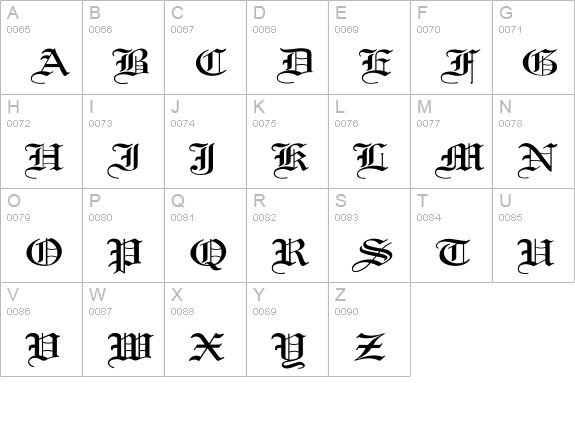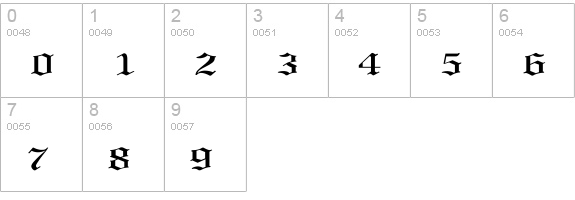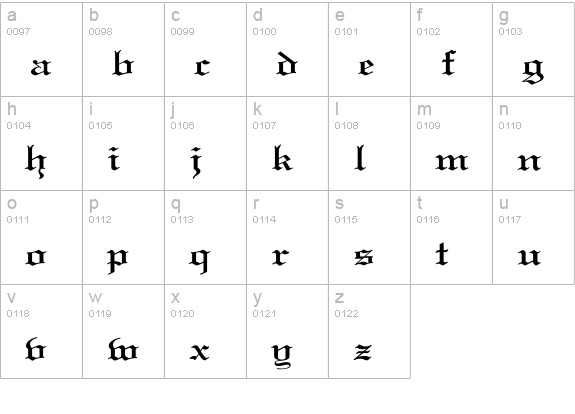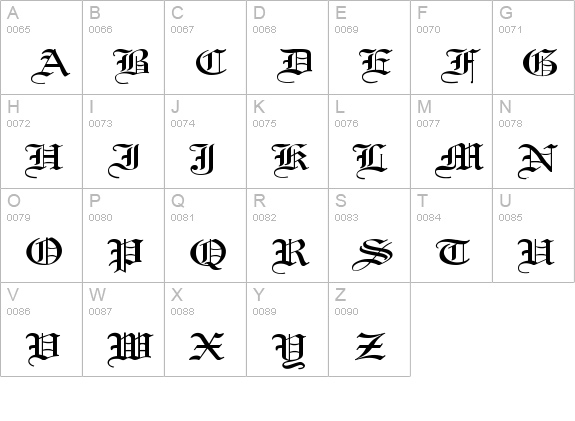
Old English Wd Font Details
The Old English Wd font is a classic and elegant typeface that exudes a sense of history and tradition. With its intricate and ornate letterforms, this font is perfect for adding a touch of vintage charm to your projects. Whether you're creating invitations, posters, or branding materials, the Old English Wd font will instantly give your designs a timeless appeal. The best part is that the Old English Wd font is completely free to download at FontsMarket.com. This means you can easily add this beautiful font to your collection without having to spend a dime. Don't miss out on the opportunity to enhance your designs with the Old English Wd font – download it today and let your creativity shine!